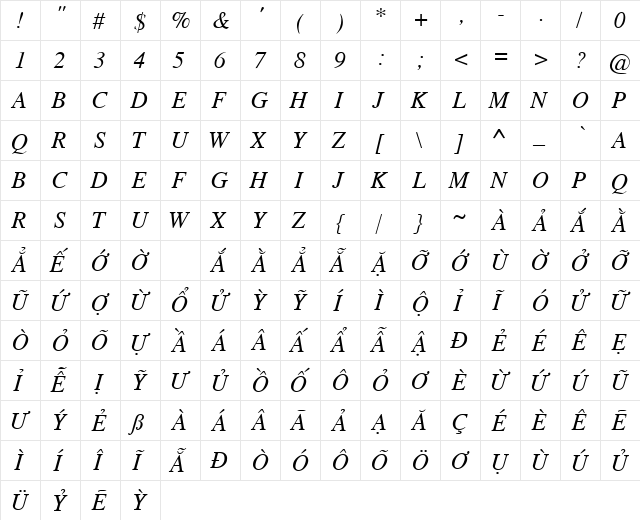
VPS Quang Duc Hoa Italic Font Preview
VPS Quang Duc Hoa Italic
Design Context for VPS Quang Duc Hoa Typeface
VPS Quang Duc Hoa offers clean, dependable letterforms without strong stylistic allegiance, making it a practical choice for designers who need flexibility. Its italic angle brings a sense of urgency and motion to the letterforms.
Pro Tip: Use VPS Quang Duc Hoa for emphasis, pull quotes, and subheadings where its slanted energy can add rhythm to the layout.